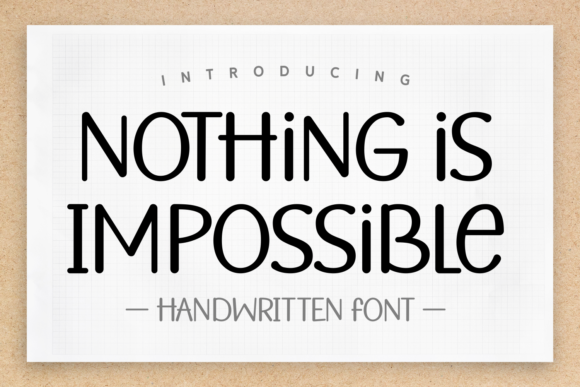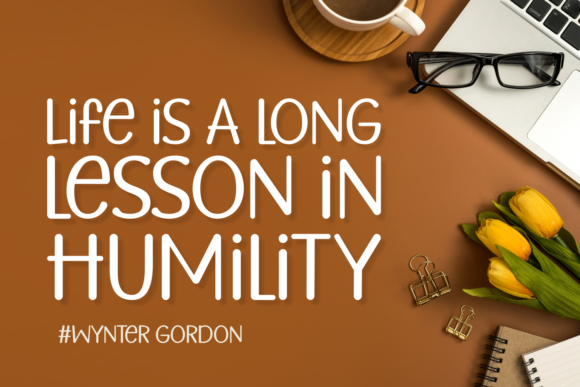
About Nothing is Impossible Font
Introducing “Nothing is Impossible,” an enchanting handwritten font that brings a touch of magic to your projects. This versatile script font is designed for a wide spectrum of applications, from greeting cards to headlines, and is guaranteed to infuse a romantic feel into your next project.
With its enchanting handwritten style, “Nothing is Impossible” adds a personal and romantic touch to your designs. The flowing letterforms and unique charm make it a perfect choice for various creative endeavors, allowing you to convey messages with a touch of warmth and whimsy.
Imagine “Nothing is Impossible” as the ideal companion for your next project, whether you’re crafting heartfelt greeting cards or creating captivating headlines. Its versatility ensures that it can adapt to different design contexts, making it a valuable asset in your font collection.
In summary, “Nothing is Impossible” is more than just a font; it’s an enchanting script that elevates your projects with a romantic and whimsical feel. With its wide range of applications, this font becomes a versatile and delightful choice for designers seeking to add a touch of magic to their creative works.